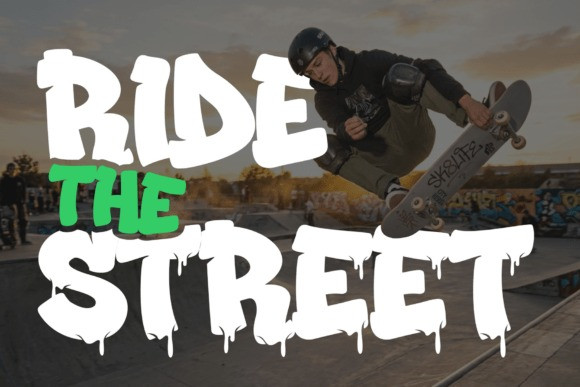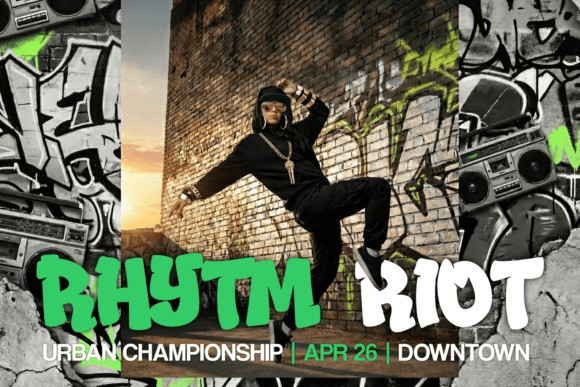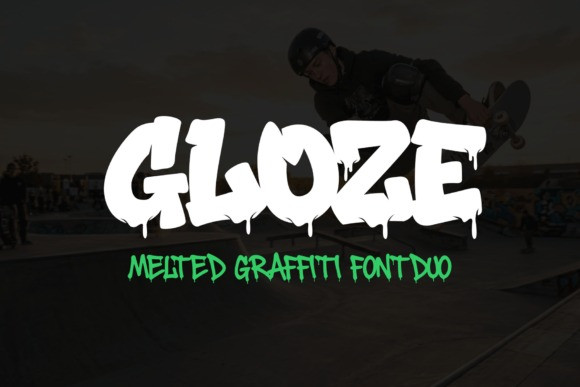
Gloze Font
Gloze Font a graffiti-inspired typeface pulsating with the untamed energy of urban street culture. Born from the gritty aesthetics of authentic spray paint art and smudged vibrant hues, Gloze delivers an unprecedented graffiti feel straight onto your design canvas.
Whether you’re crafting impactful album covers, eye-catching social media graphics, or edgy streetwear branding, Gloze’s unique typographical palate instills them with a distinctive graffiti-touch. Its flamboyant letterforms ensure that titles and headlines stand out, while its artistic style uplifts any creative project with a punch of personality.